Turning old letters into a global typeface
Font foundry Sharp Type scours everything from libraries to cemeteries in its mission to create one typeface to rule them all.
Completed in 1747, when America was still a collection of British colonies, The Redwood Library and Athenaeum in Newport, Rhode Island, is the nation’s oldest purpose-built library. Here, in a stately upstairs room, the team from Sharp Type, a type foundry specialising in digital typefaces (think the fonts on a computer) are huddled over a large table.
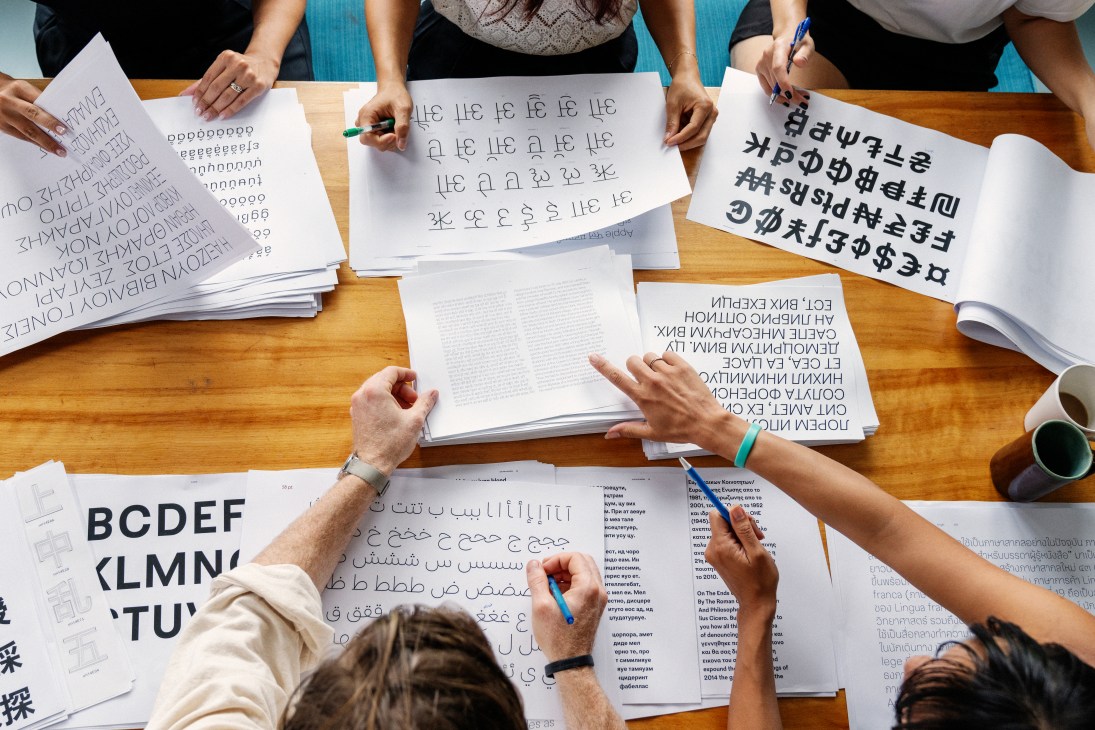
“Did you see this M?” says one designer at a decibel level more suited for a concert than a library. “That’s the best letter; there’s a lot of opportunity for fun there,” says another emphatically. “Oh my goodness – this R,” says another, poring over a scrapbook of capital letters. Photo-taking, to the delight of the librarians, who seldom see such enthusiasm, commences: it’s as though a rare animal were spotted but instead the attention is on the forms, curves, accents, flourishes and lines of lettering in the books.
The collection from the library’s vault includes a miniature 18th-century atlas from France and a book from William Morris’s Kelmscott Press. But the publication that receives the most enthusiastic reception is a 19th-century artist’s scrapbook containing hundreds of capital letters. “These drop caps are insane,” says Lucas Sharp, who co-founded Sharp Type in 2015 with Chantra Malee. Partners in business and life, the duo’s firm counts Samsung, the Royal Danish Theatre and La Repubblica among its clients. “We’re part of a pretty niche and esoteric industry,” says Lucas. “It’s not something that a lot of us think about, yet type design is omnipresent in just about everyone’s life.”
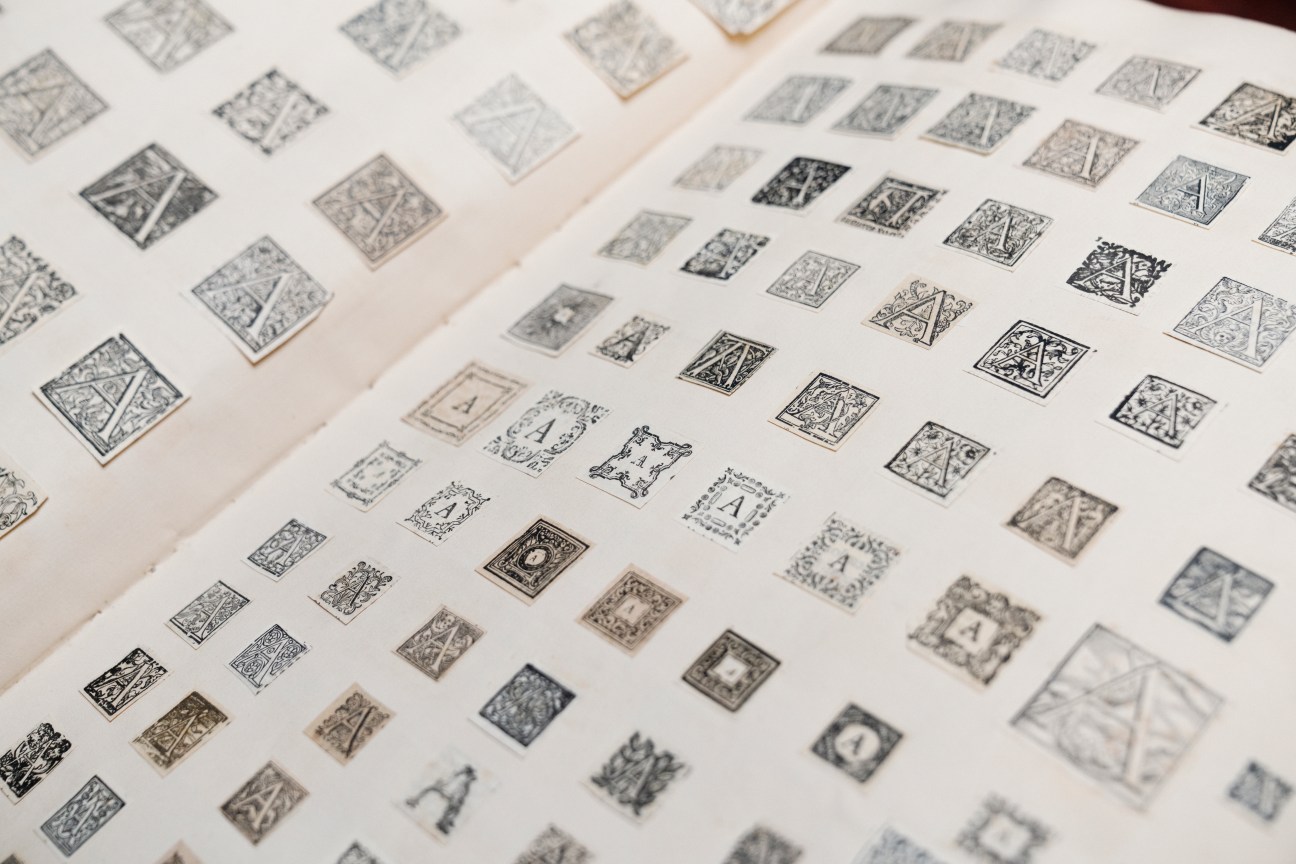
When Monocle meets Sharp Type at the Redwood library, it is because its core team of eight designers has descended on Chantra’s home city for its company retreat. An annual event usually held in different locations across the US, it entails a series of field trips where the team seeks physical inspiration for its digital work. The Rhode Island city has been chosen because there is plenty to appreciate from a typography viewpoint. “Newport represents the Gilded Age, craftsmanship in America and a tradition of letter form as art,” says Chantra. “It’s a good place to remember the origins of our industry, in America anyway, to get our team out of the digital world for a while.”
Sharp Type’s newest project speaks firmly of the modern moment and its impending launch is a big focus of the assembly. Sharp Earth will be the foundry’s newest design. Notably, it will be a global typeface. This means that it will enable disparate language groups – Latin, Arabic, Indic, Japanese, Greek, Thai, English and various indigenous languages – to appear graphically harmonious while remaining legible and true to their origins. The result will allow people and companies across the globe access to a consistent typeface for their materials and branding, and could be called upon in international efforts to create a unified front when tackling problems such as climate change or health emergencies.
While there is exciting potential for more accessible global communication, the main drive was to craft a typeface that is beautiful, functional and of this moment. “Typefaces are markers that represent history and moments in time,” says Chantra, leafing through a 15th-century bible with intricate hand-drawn letters. “This bible speaks of its time. So does something like the psychedelic, acid-font craze of the 1960s, which perfectly encapsulated the spirit of counterculture.”
What, then, does Sharp Earth aim to capture? “We live in a fully globalised and digital world, so Sharp Earth represents what it is like to be here right now,” says Lucas. “If Helvetica was for modernism, and Avenir and Gotham were for postmodernism, then Sharp Earth is for whatever comes next.”
Developing a global typeface, though, is a challenging endeavour. Large companies such as Google and Adobe have developed their own, but Sharp Type is the first small, independent studio to attempt to create one of this scale. It requires drawing on the expertise of people worldwide. This is something that Lucas and Chantra, who are based near San Francisco, understood when they opted to employ a team that covers time and language zones. Those in Newport for the company retreat have made their way from across Asia, North America and Europe, reflecting a diverse slice of humanity that has been essential to the work on Sharp Earth, and the foundry’s mission more broadly. “It gives us a larger perspective on languages and cultures that are historically overlooked in this work,” says Chantra, as the group walks through downtown Newport en route to lunch. A pleasant mix of accents hangs in the air.
Afterwards, the next stop on the tour is a visit to Island Cemetery, which dates to the 1600s. Léna Le Pommelet, a designer from Switzerland, had no sooner entered the grounds before she paused, transfixed by an extraordinarily decorative ampersand. “You’ll never find this elsewhere,” she says, whispering. Meanwhile, Lucas explains why this retreat and associated field trips are essential. Kneeling, he points to a tombstone with a deep V letter etching which, in the afternoon sun, accentuates the two tones in the stone’s mineral. “This effect would all be lost if I tried to digitise it,” he says. Still, this cemetery has been fertile ground for inspiration before. A recent field trip here gave rise to the foundry’s popular Greenstone typeface.
The most exciting stop of the day awaits down the road from the cemetery at The John Stevens Shop, which dates to 1705 and has claims to being one of America’s oldest businesses. The original store’s namesake owner traded rum and molasses but was noted for his unique offering of stone carving, specifically gravestones. The shop remained in the Stevens family until 1927, before it was sold to the Benson family – and it’s Nicholas Benson who greets Sharp Type in the green clapboard shop. “Welcome,” says Benson, who took over the business from his father in 1993, ushering the team inside. Here, books are piled high, granite slabs sit on benches, and mallets and chisels line windowsills.
Like the Sharp Type team, Benson is also a man of letters, only he’s responsible for carving them into stone, by hand. When he’s not in the shop chiselling tombstones or training apprentices (including his daughter), he is often in Washington, carving words into the nation’s finest monuments and museums. Also, like the team at Sharp Type, the shop has a legacy of designing lettering. “My grandfather developed a house style,” Benson tells the group, whose eyes wander from wall to wall. “That form became known as The John Stevens Shop Roman.” Asked if he still uses it, the answer comes quickly: “It is still the shop’s signature typeface.” Occasionally, though, Benson creates his own, most notably for the Martin Luther King Jr Memorial and Eisenhower Memorial.
So what does Benson think of Sharp Type’s mission to find inspiration in old letters to influence new global types? “The world of digital isn’t my language,” he says. “But I do get it. My father straddled both worlds by making typefaces for Adobe.” Those three typefaces, all created in 1994, blended traditional hand-drawn calligraphy style with digital design. Within 45 minutes the tour is over and, with the sun setting, the Sharp Type team files out onto the cobblestone streets of Newport.
Could a few new fonts, or at least letters, have been inspired today? “Check in with us in six months,” says Lucas. “Something usually lights a spark.”
The following morning, Sharp Type assembles in the living room of a house overlooking the harbour, which is their base for the retreat. On a table are pastries and proofs of Sharp Earth in Arabic, Thai and Japanese Hiragana, all of which show how the languages can be brought into a pleasing, uniform visual system.
This ambitious project begs the question: what role do old typefaces, created by instruments such as quills and chisels, and found in the libraries and cemeteries in New England, play in creating a digital, global font? Neither Lucas nor Chantra sees the two as mutually exclusive. “We want to be a bit of a bridge between these worlds,” says Lucas.
And Newport, Chantra adds, is just the start. “If we want to continue to cover every language system but maintain its identity and context, that will mean getting our hands dirty, and turning over stones around the world in Asia, Europe and Africa, like we did this week.”